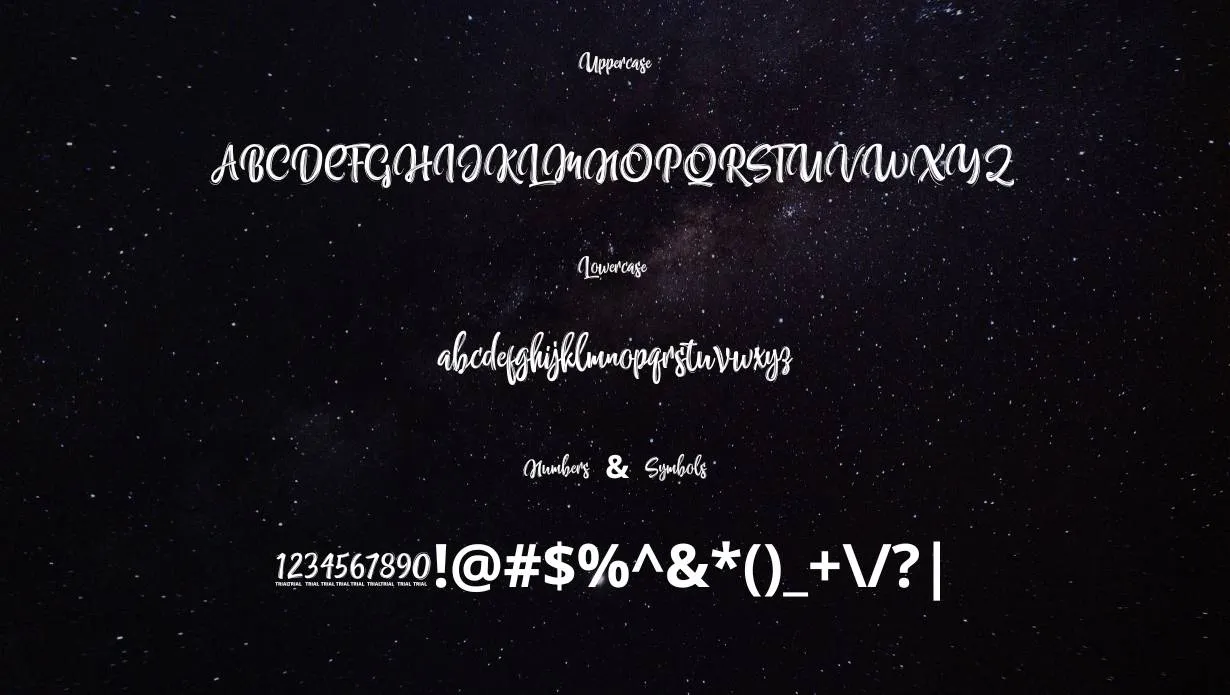
Nettizen font is the voice of the digital era—sleek, modern, and perfectly in sync with the online world. When you use it, your text becomes a trendy social media post, effortlessly capturing attention in the digital landscape.
It’s the go-to choice for creating content that resonates in the online space. Nettizen’s letters are like pixels forming a cohesive and modern look for your message in the digital universe.
| Name | Nettizen Font |
| Designer | Olex Studio |